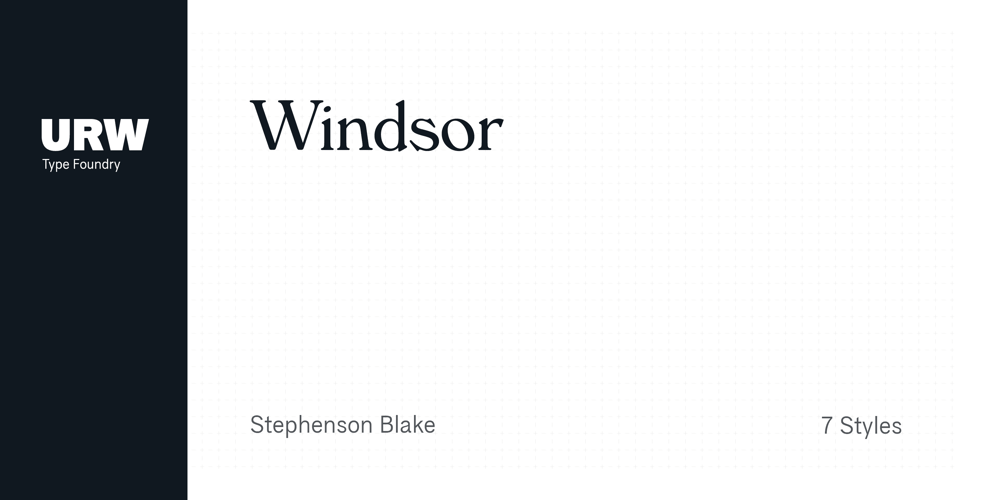
Windsor
Windsor font
Windsor Font Family was designed by Stephenson Blake and published by URW Type Foundry. Windsor contains 7 styles and family package options. Windsor is an unusual design cut by Stephenson Blake in 1905. Windsor is a bold face with heavy rounded serifs and strong diagonal stress. Capitals M and W are widely splayed, P and R have very large upper bowls. The Lowercase a h m and n of the Windsor font have angled right hand stems, e has an angled cross-stroke. The overall effect is one of friendliness and warmth. Use the Windsor font in advertising, on posters and for general display work.